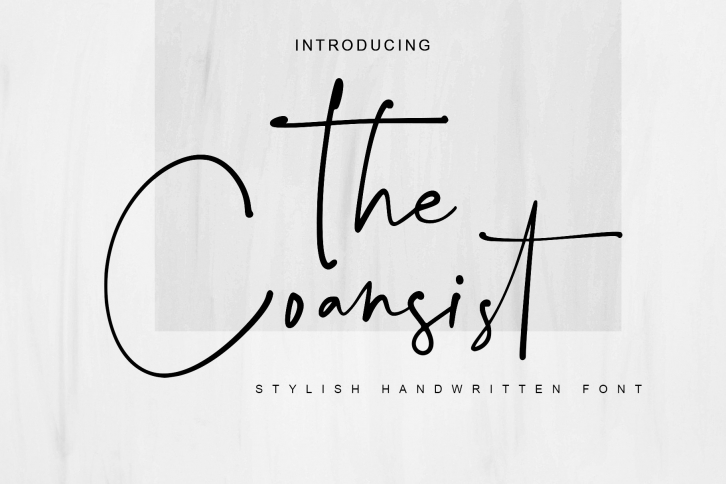
The Coansist is a handwritten script font with a simple and classy style, this font is great for your next creative projects such as watermark on photography, quotes, album cover, logo, business card, and many other design project. From business cards to photo watermarks, The Coansist is here to elevate your work to the highest level.
The Coansist comes with uppercase letters, lowercase letters, numbers, punctuation, ligature and multi lingual support